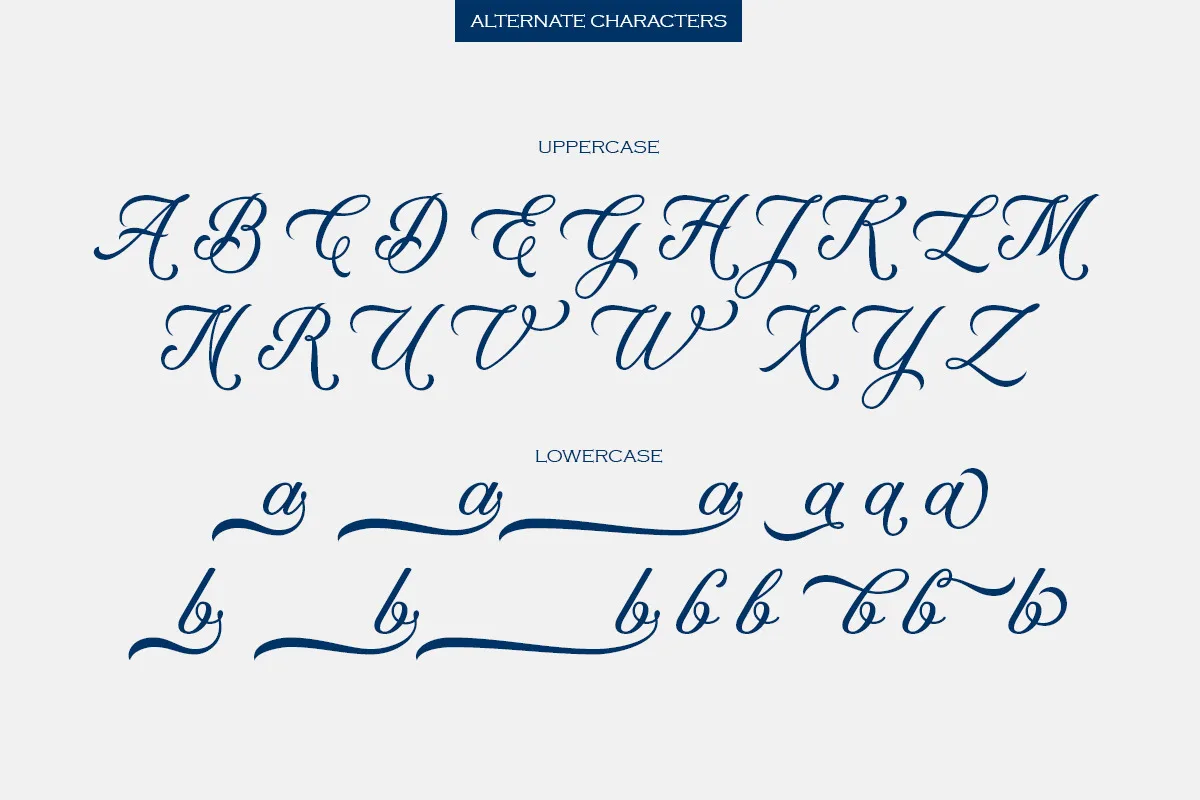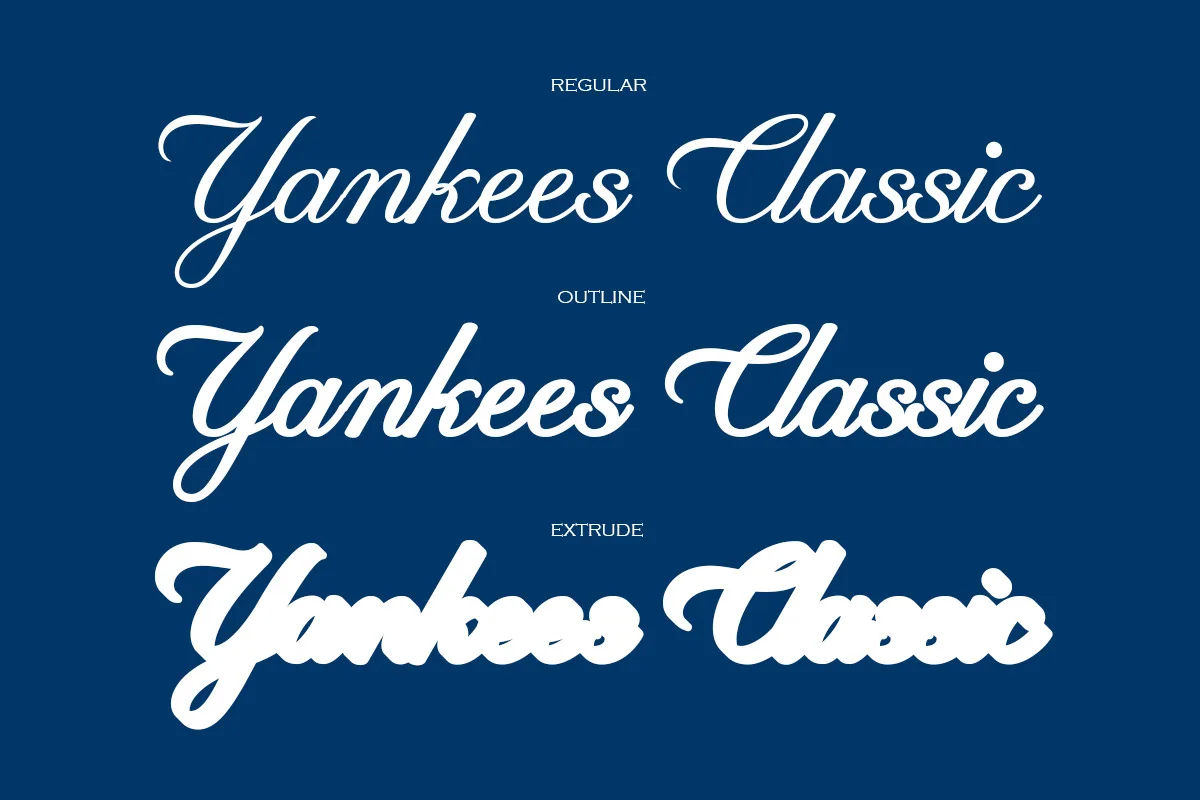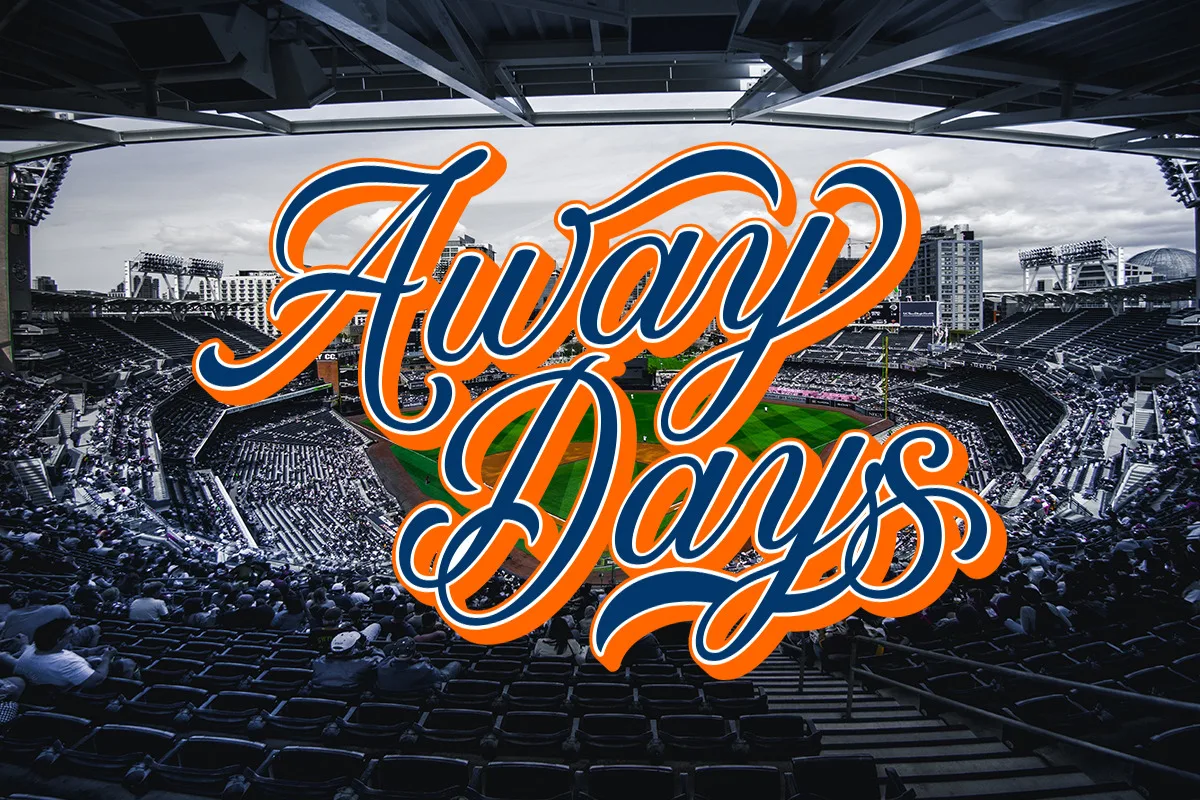
Introducing of our new product the name Yankees Classic | Athletics Font. Yankees Classic Font includes uppercase and lowercase letters, numerals, a large range of punctuation, alternate characters, stylishtic set, extrude font and ligatures.
Highlights:
- Yankees Classic Regular/Outline/Extrude
- Uppercase & Lowercase
- Ligatures & Alternate
- Numeral & Punctuations